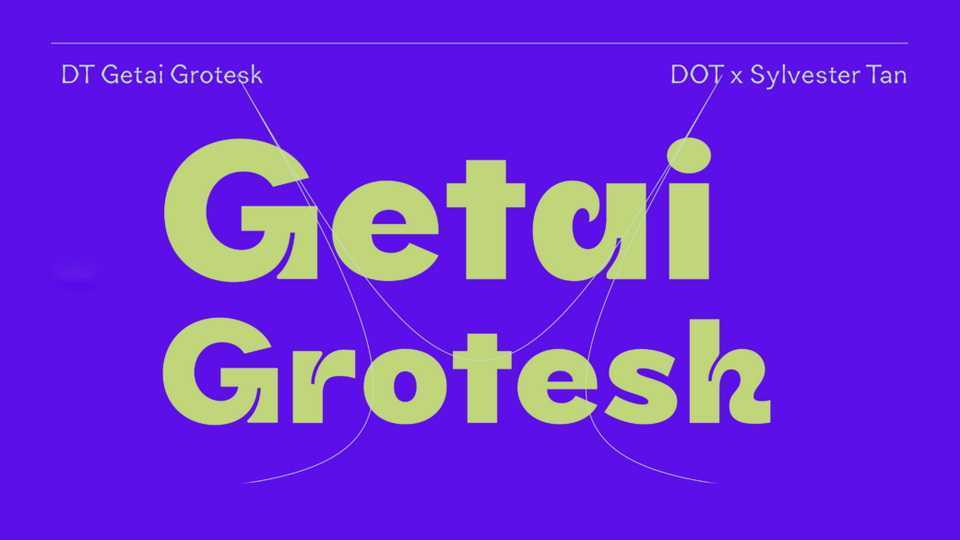
Download Getai Grotesk font, a contemporary display typeface inspired by Chinese calligraphic character styles used in Getai signages in Singapore. Getai Grotesk is designed to be a versatile display font, a balance of both flair and function.
Designer: Sylvester Tan